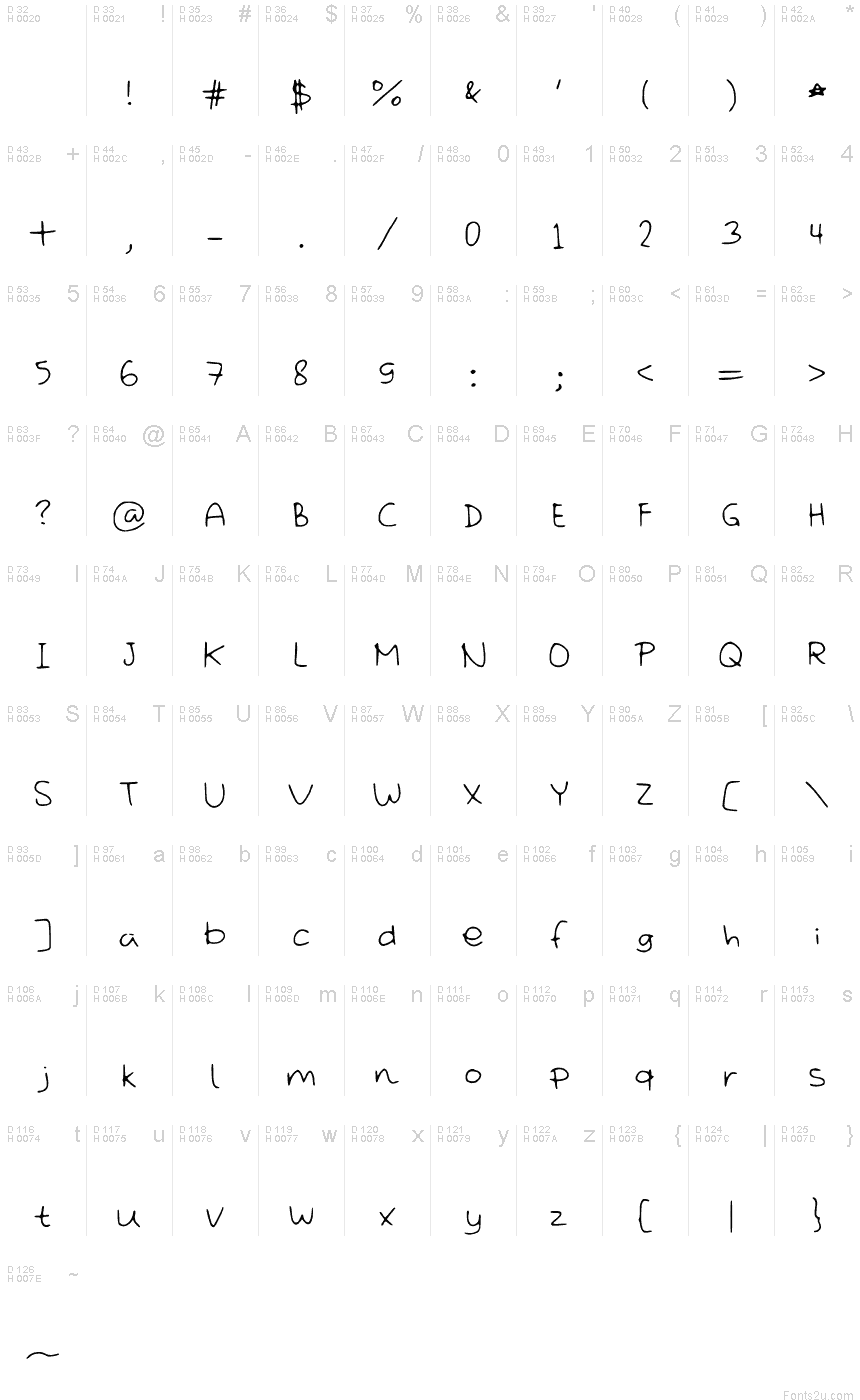
MissDisorder
So sorry for the un-filled symbol! :"(
I'm focusing it on the alpha-numeric and the general symbol.
hope you'll still enjoy this cute-and-little-disorder font!